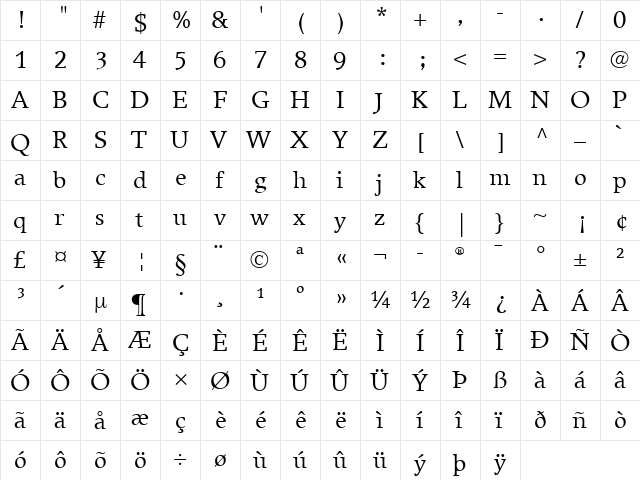
Breughel LT Regular Regular
Design Context for Breughel LT Regular Typeface
Breughel LT Regular takes a measured approach to typography — its balanced proportions and neutral character make it a reliable workhorse for both digital and print work. The delicate stroke weight brings airiness and refinement to layouts.